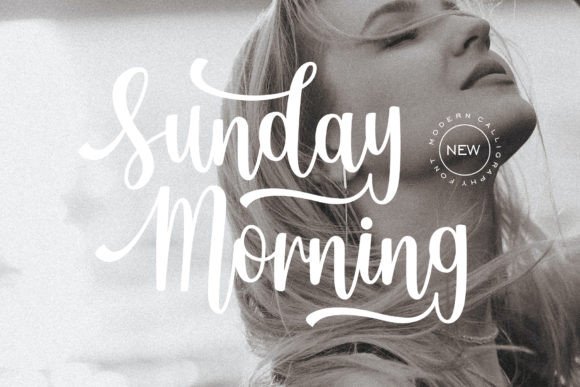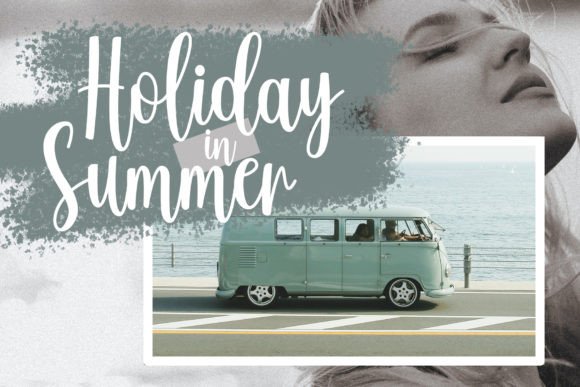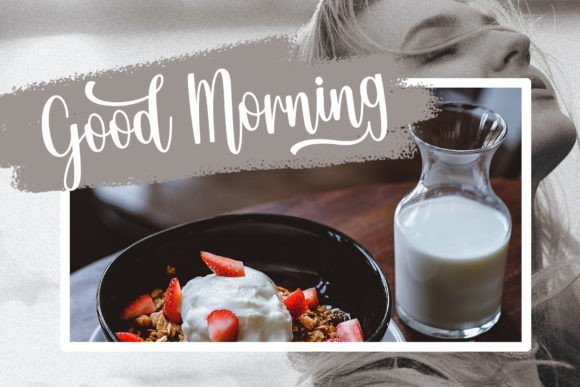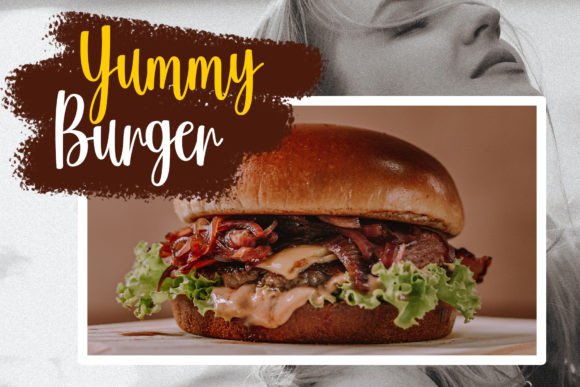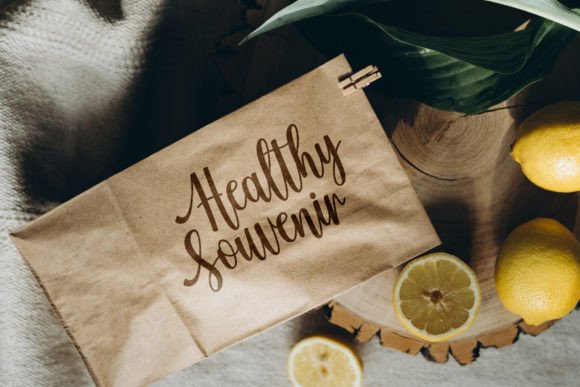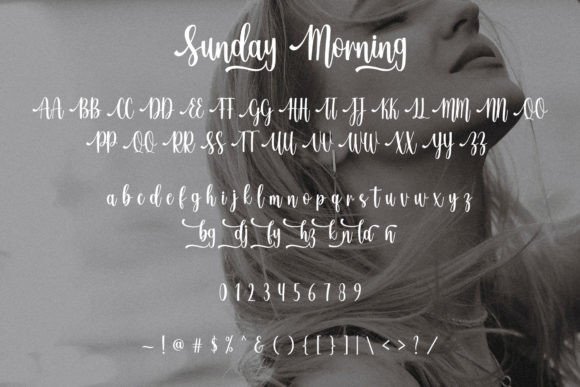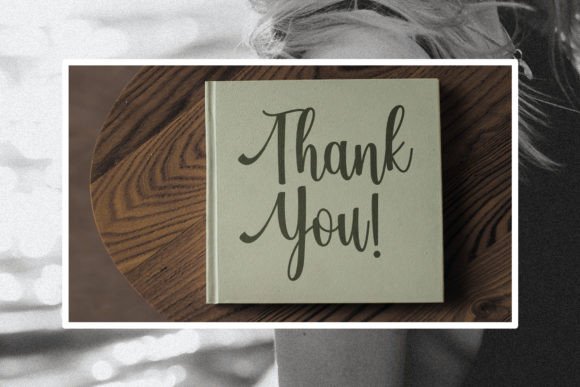
Sunday Morning Font
What Is Sunday Morning Font?
Sunday Morning Font is a modern and elegant script designed to bring sophistication and beauty to your projects. Every letter flows with smooth curves and refined details that create a graceful, luxurious feel. Because of its polished style, this font is perfect for designs needing an upscale, handcrafted touch.
You will quickly see how Sunday Morning elevates your work with a clean, modern character.
Sunday Morning is a versatile font you can apply to many types of creative work. For example, it’s ideal for logos and branding. The elegant script style makes any brand feel professional and memorable.
In addition, it works beautifully for invitations and event materials. Whether you design wedding stationery or gala programs, Sunday Morning adds a refined, romantic look.
You can also use it for packaging and labels. Even simple product tags feel more premium with this smooth, stylish script.
When you create quotes, social media graphics, or website banners, Sunday Morning delivers a sophisticated and captivating appearance.
Moreover, it’s great for business cards, thank-you notes, and personal projects. Your designs will look cohesive and elegant every time.
Why Should You Choose Sunday Morning Font?
There are many reasons to consider Sunday Morning for your next design. First, it’s easy to read, even with its flowing script style. Whether you use large headlines or small captions, every letter remains clear and smooth.
Also, Sunday Morning pairs beautifully with minimalist sans-serif or serif fonts. This allows you to build layouts that look balanced and contemporary.
Because it’s fully PUA encoded, you can access all glyphs, alternates, and swashes without extra tools. Customizing your text becomes fast and effortless.
Designers love that it looks polished right away, saving time while delivering professional results.
Sunday Morning Font adds elegance and modern style to every project. For example, when you want your designs to feel luxurious and timeless, this font makes it effortless.
Even minimalist layouts look more striking with Sunday Morning’s graceful strokes. Whether you create branding, packaging, or event materials, your work will stand out.
Using a premium script also shows your attention to detail and dedication to quality. This helps build trust with your audience and makes your designs unforgettable.
Sunday Morning Font is more than just a typeface—it’s a creative tool that helps you communicate ideas with clarity and beauty. From logos and invitations to websites and packaging, this font adapts easily and leaves a lasting impression.